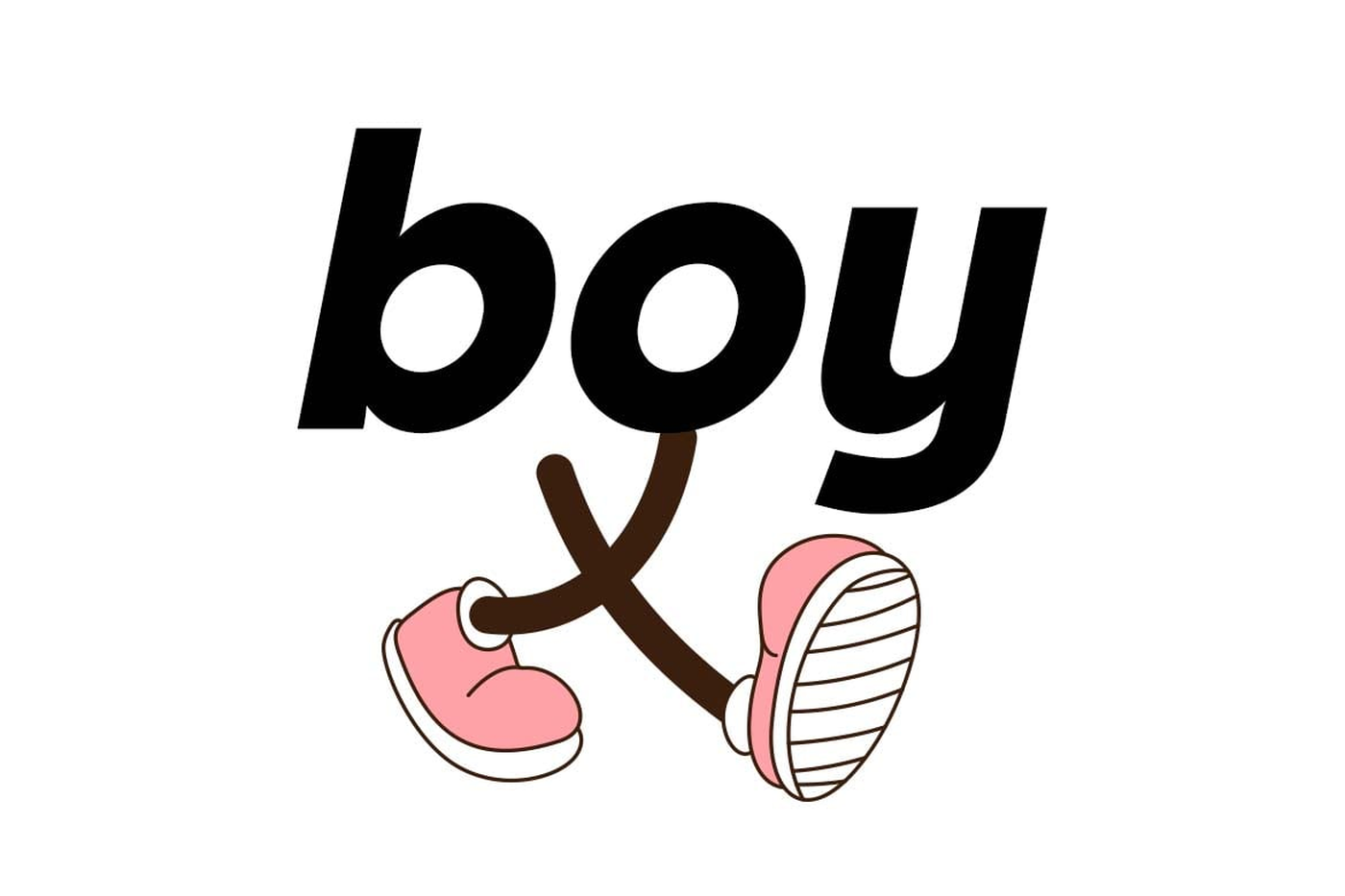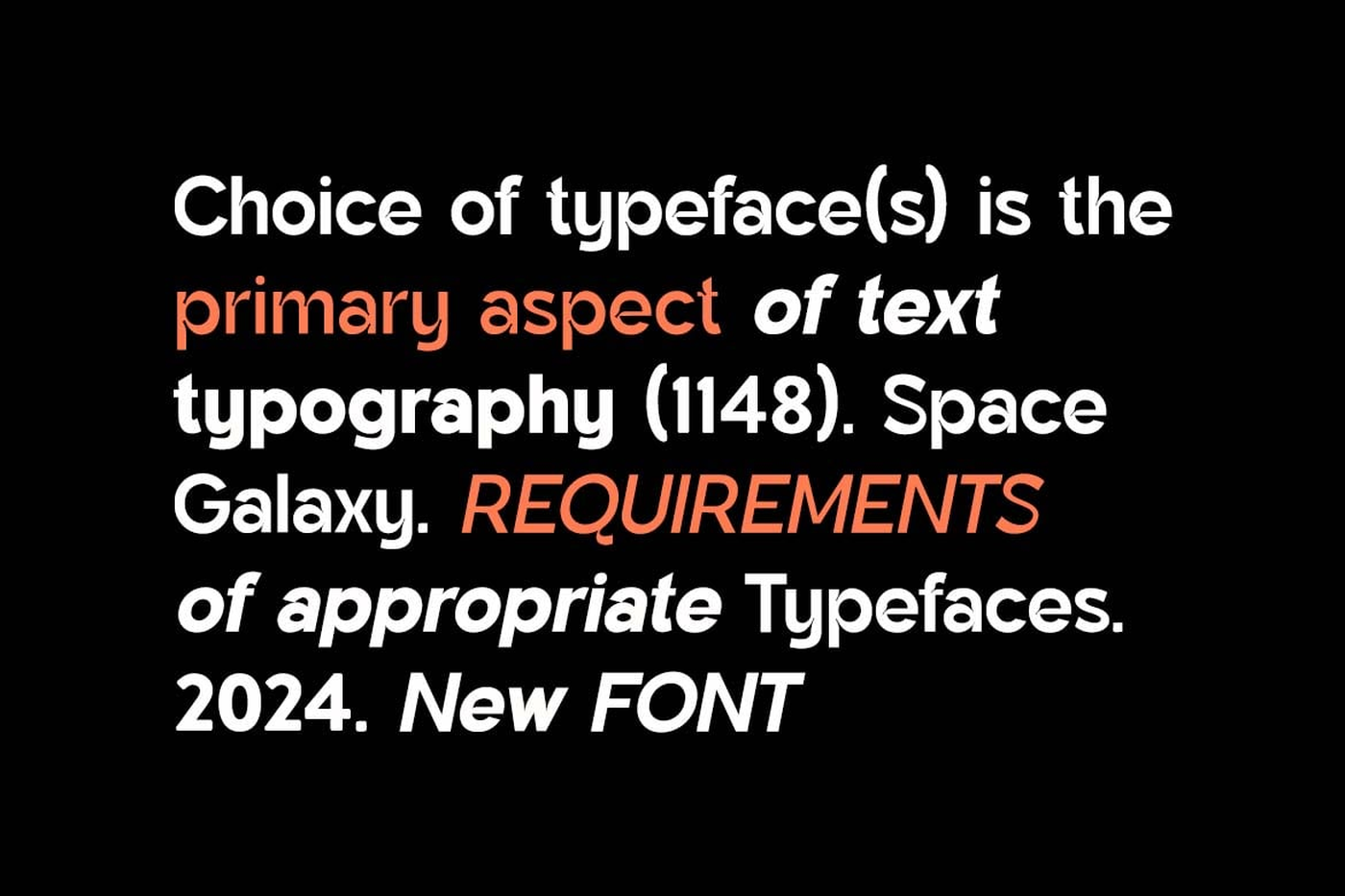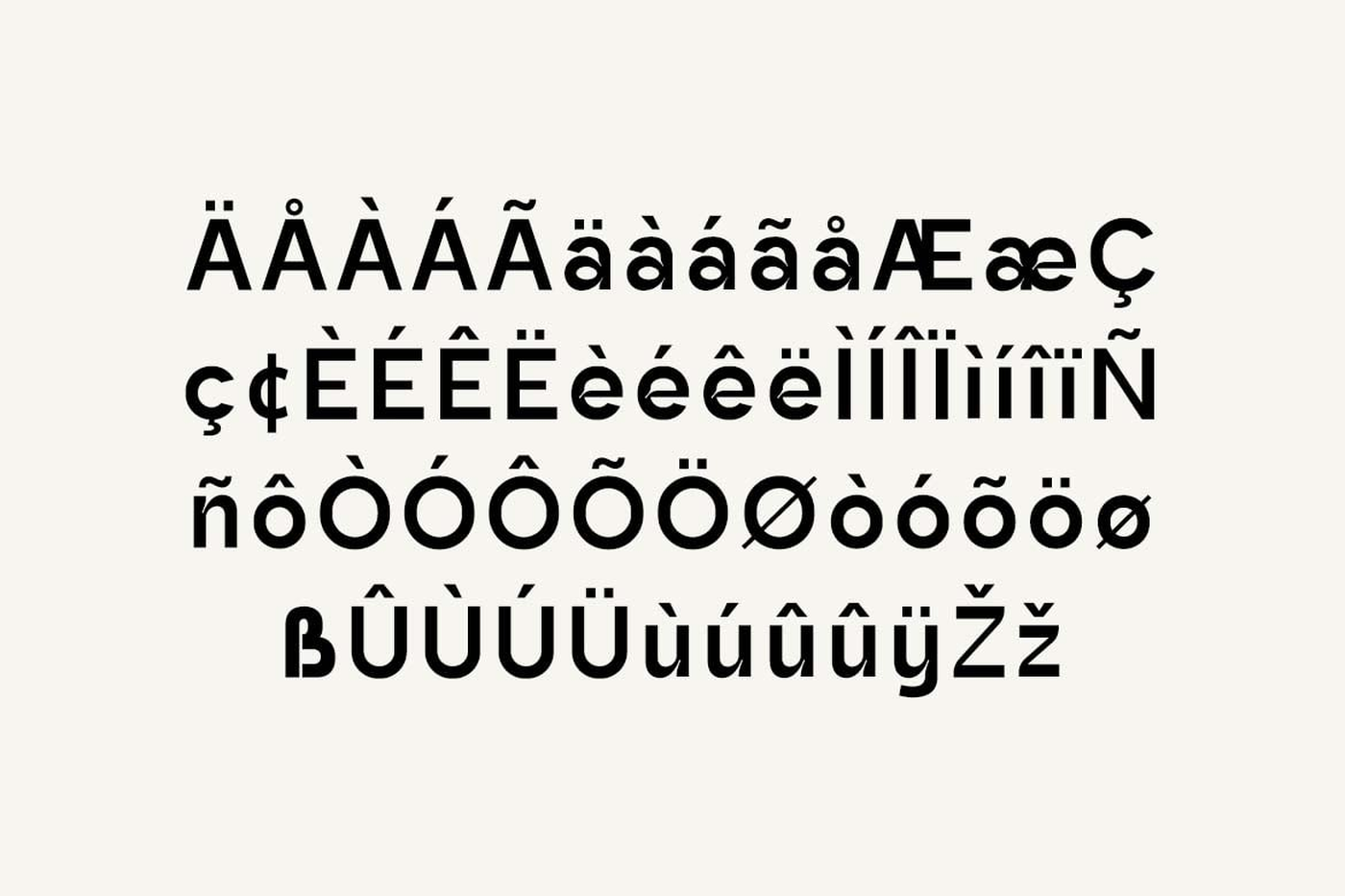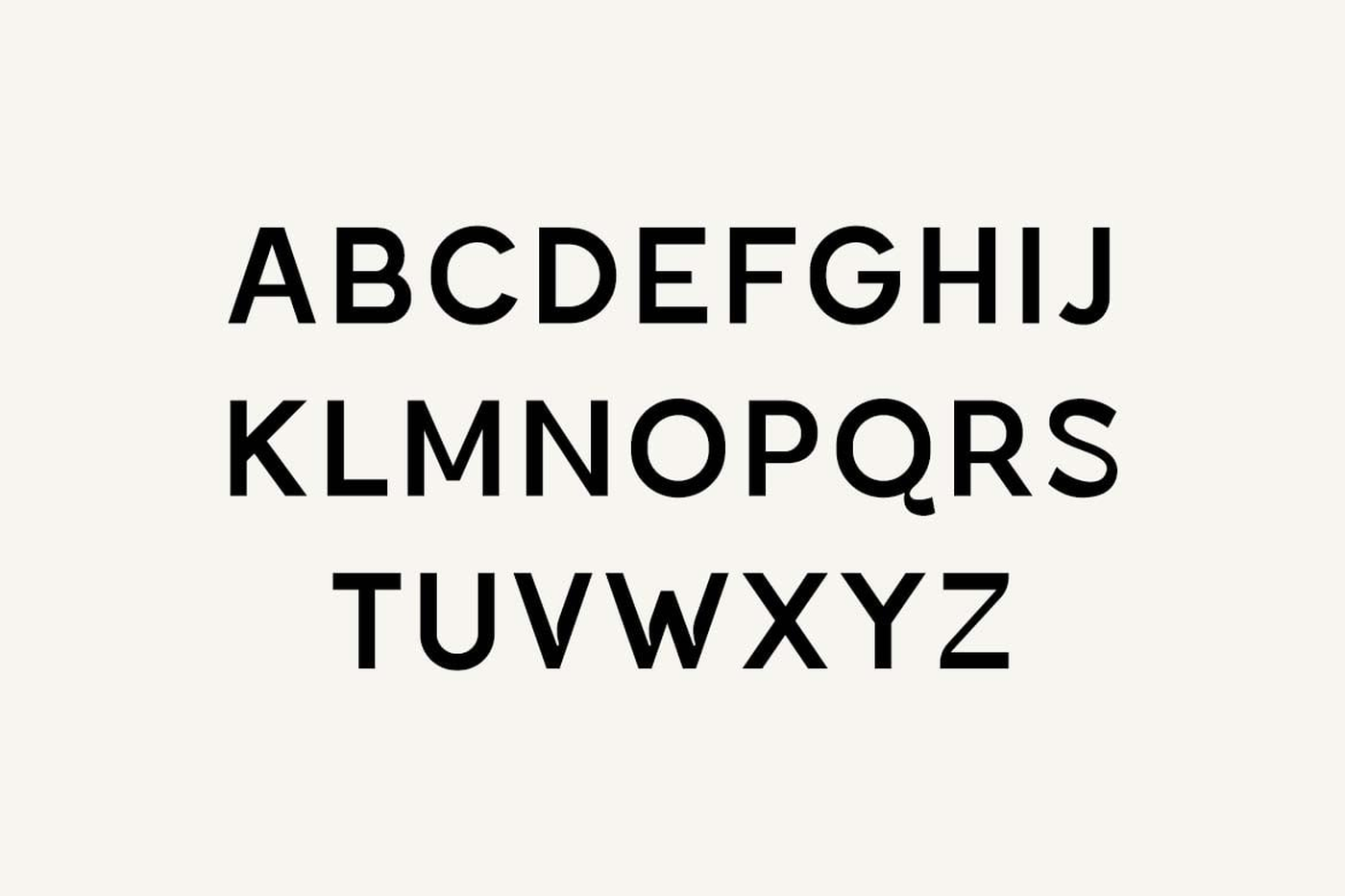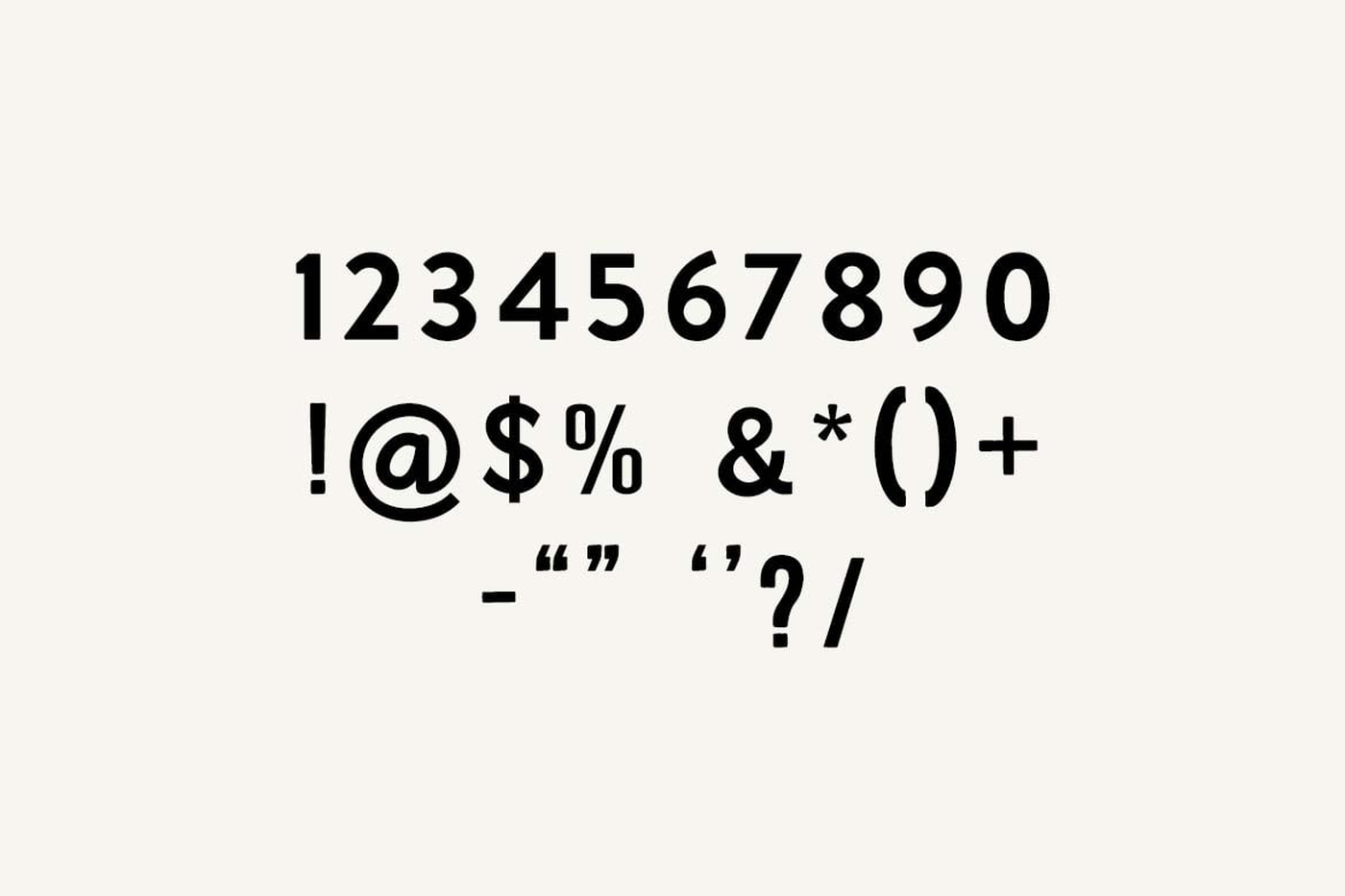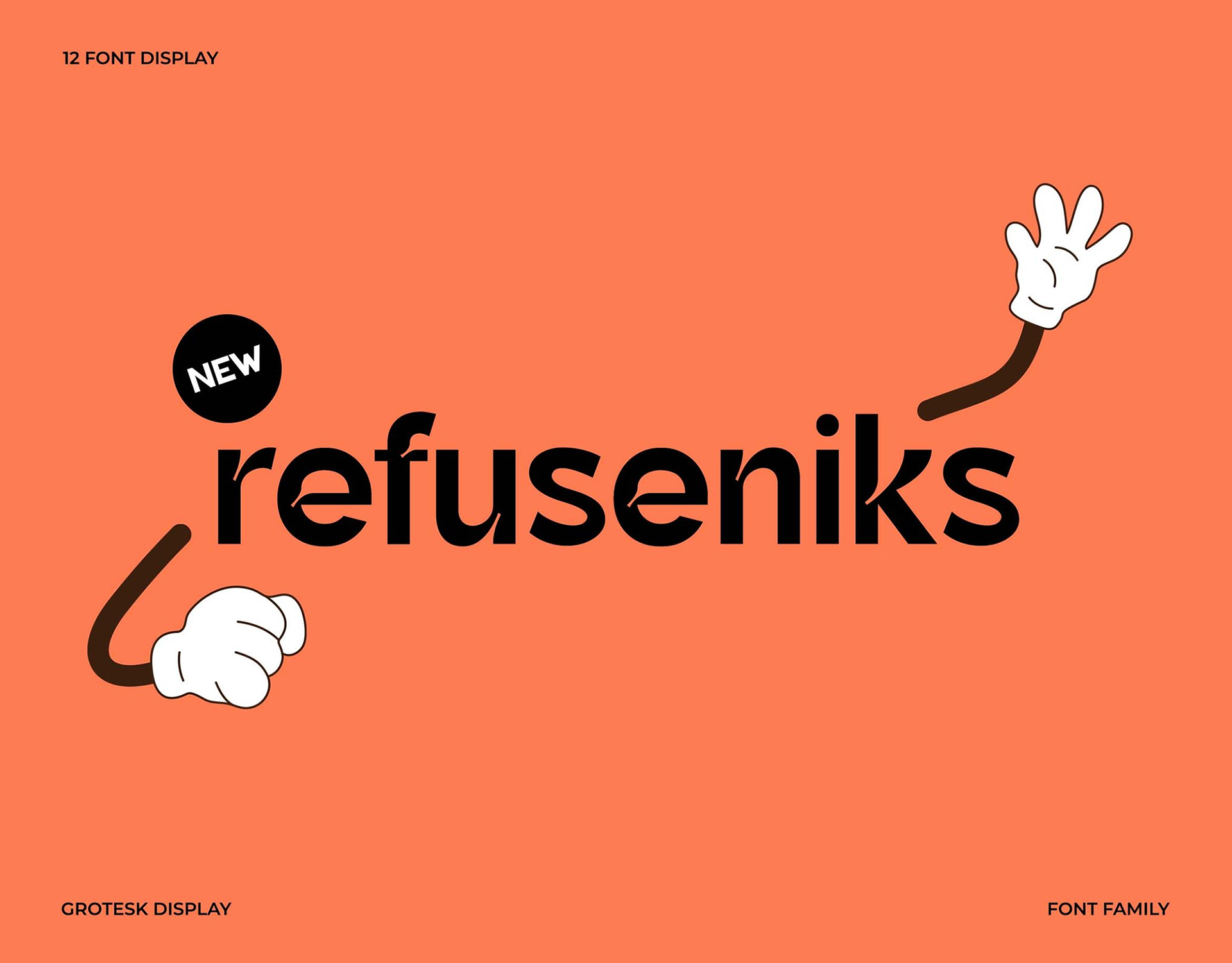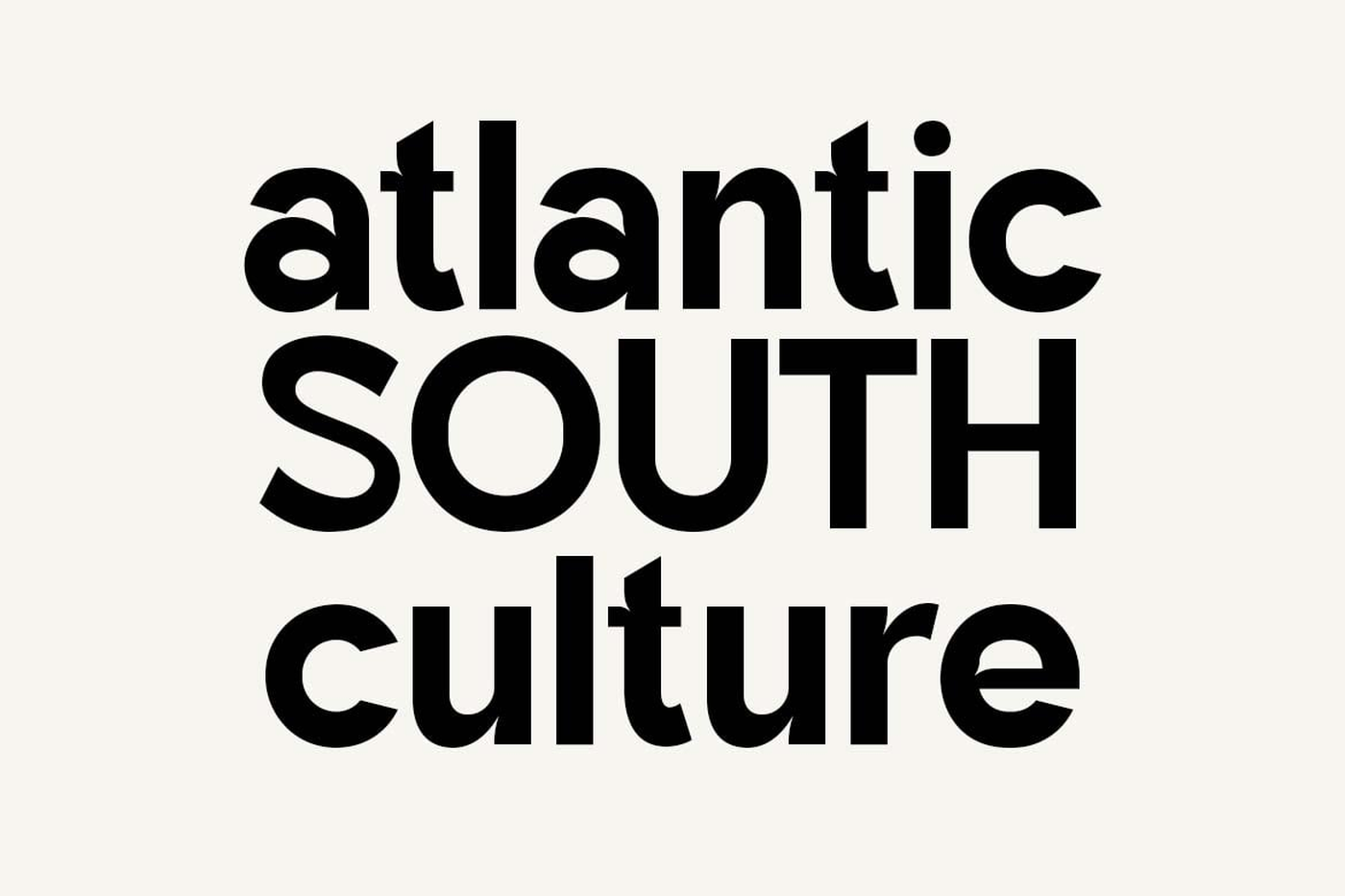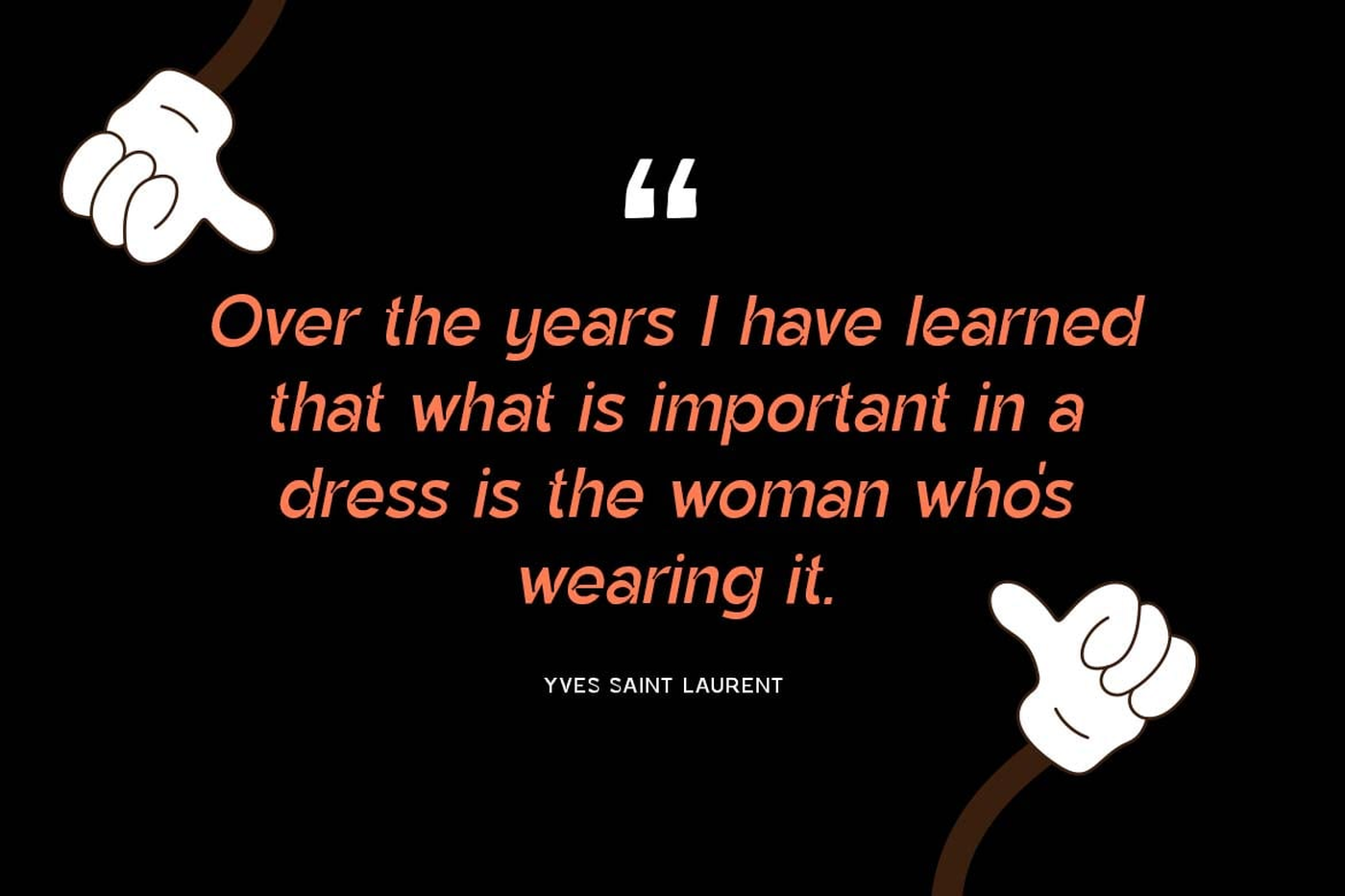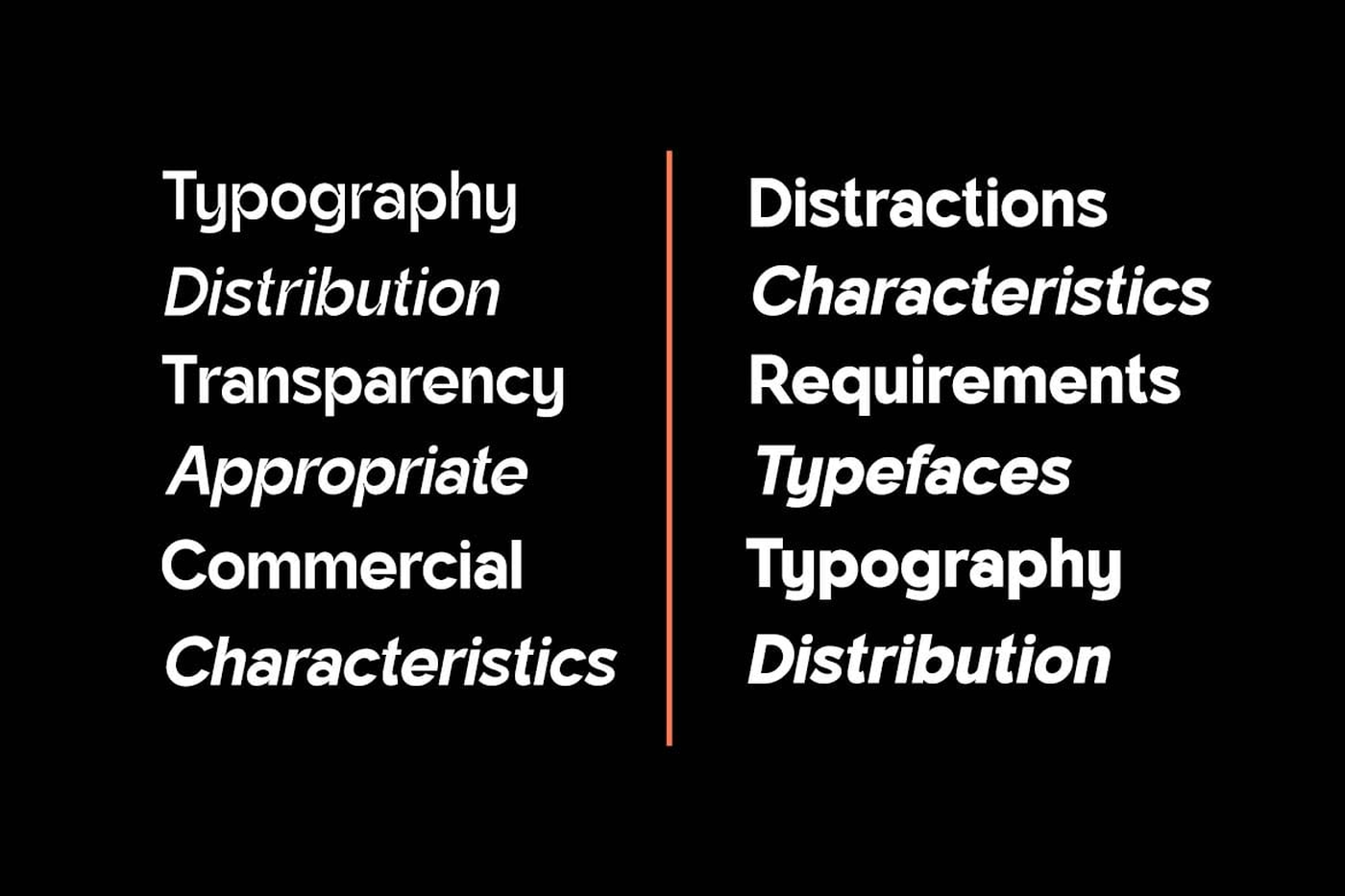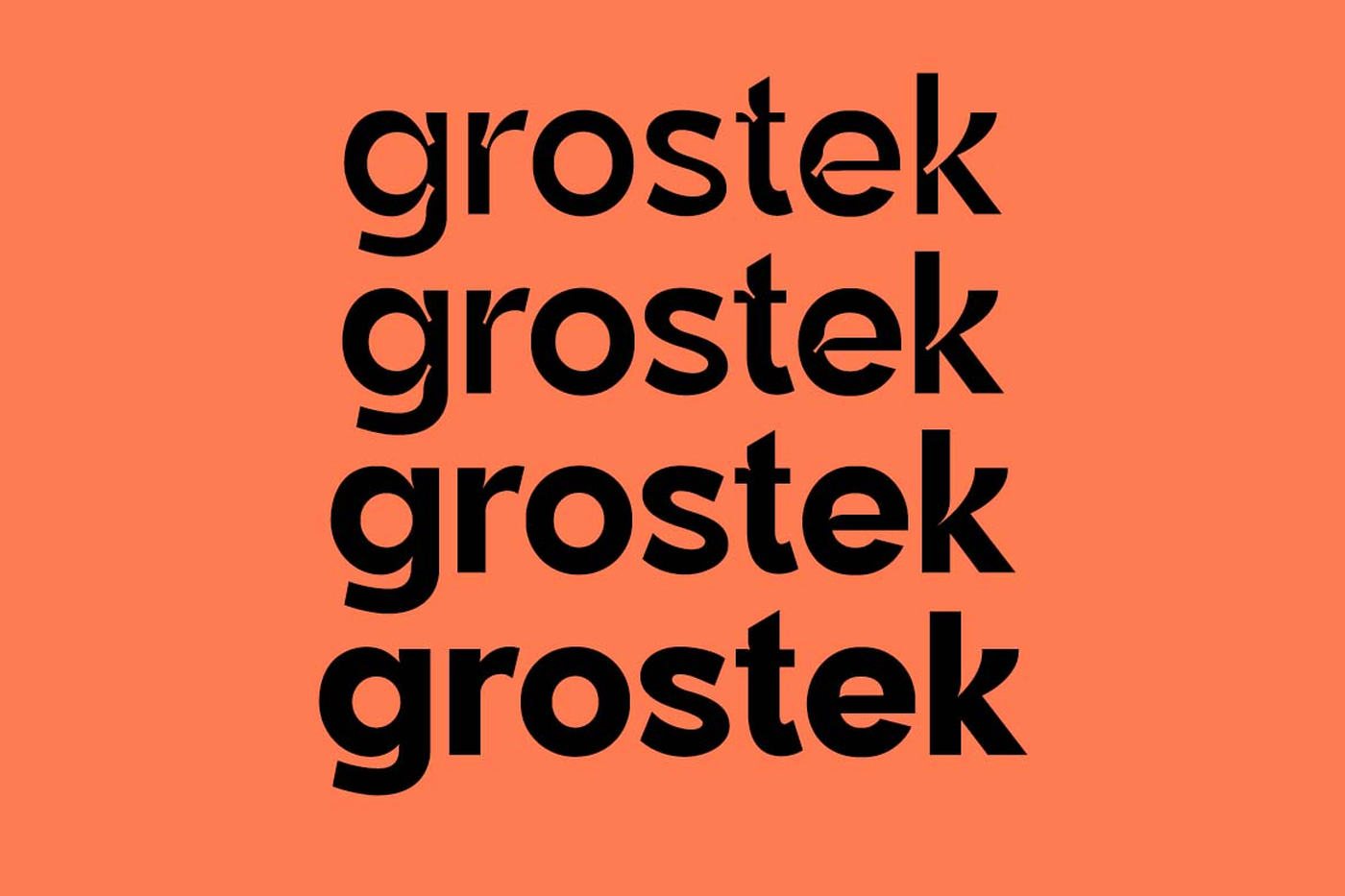
Refuseniks - Grotesk Display Font
Refuseniks that feels beautiful classy, elegant, and modern. This font is ideally suited for a wide variety of projects, such as signature, stationery, logo, wedding, typography quotes, magazine or book covers, website headers, clothing, branding, packaging design, and more. Also, fashion-related branding or editorial design displays both masculine and feminine qualities.